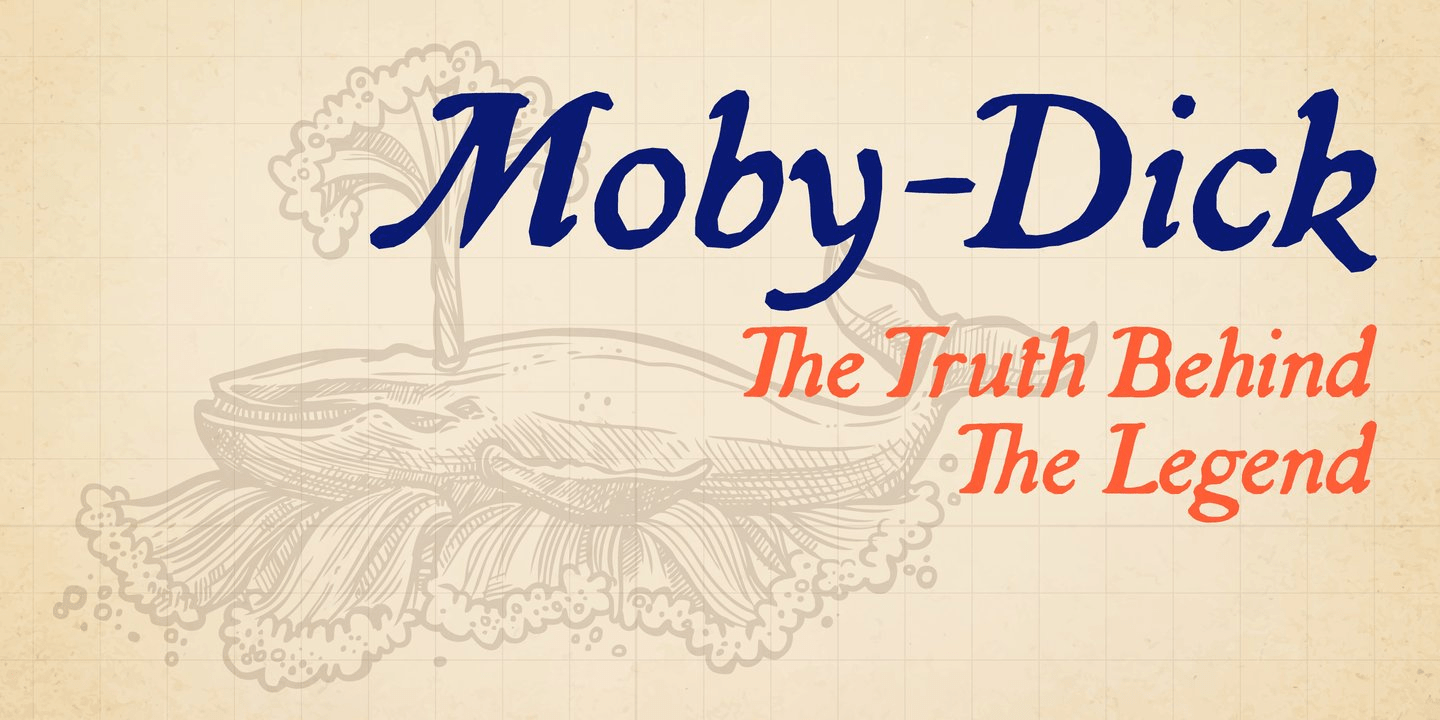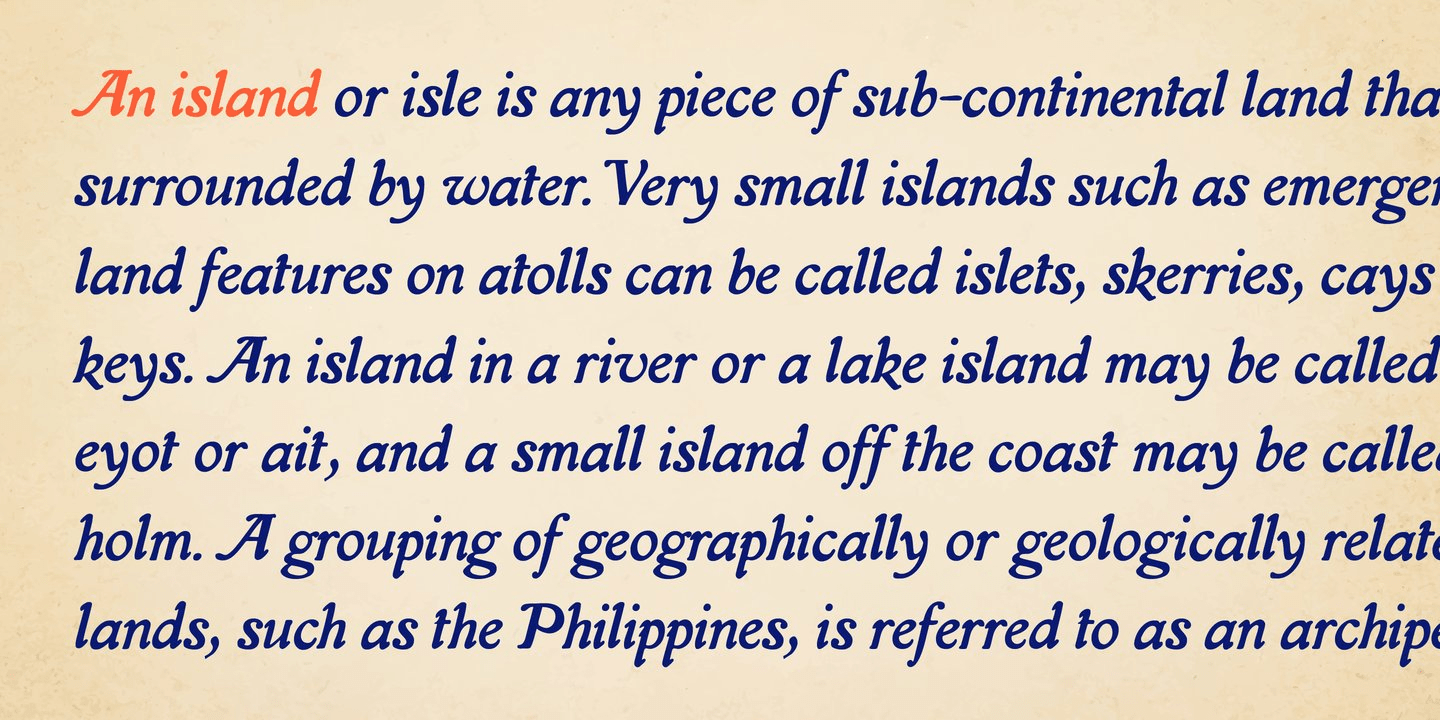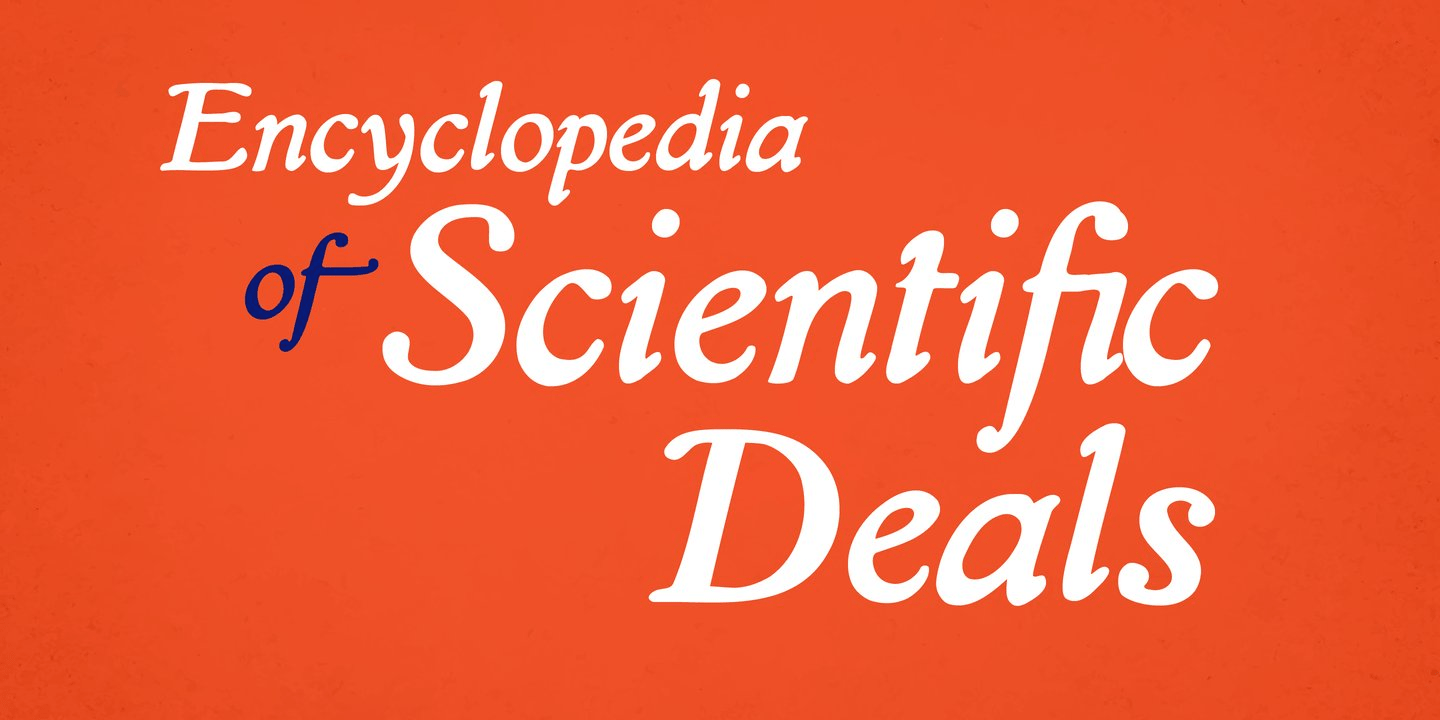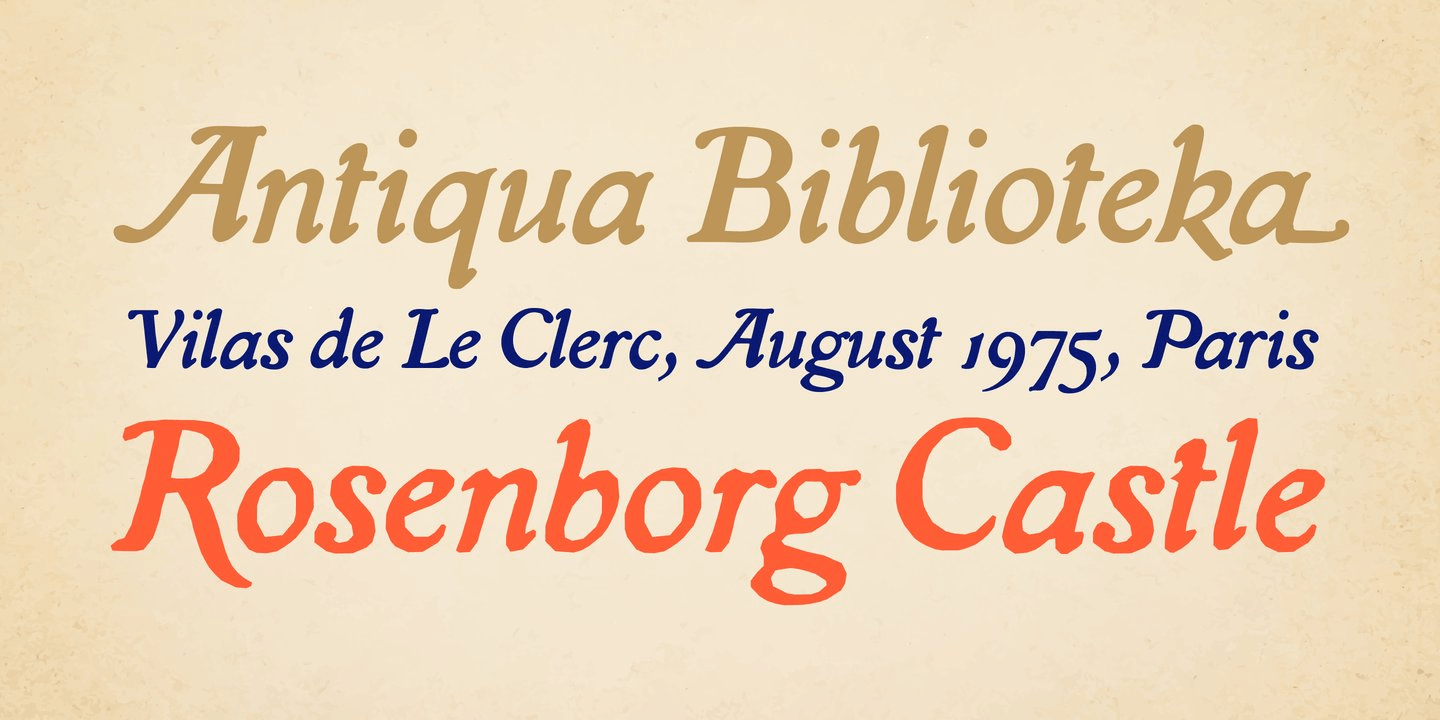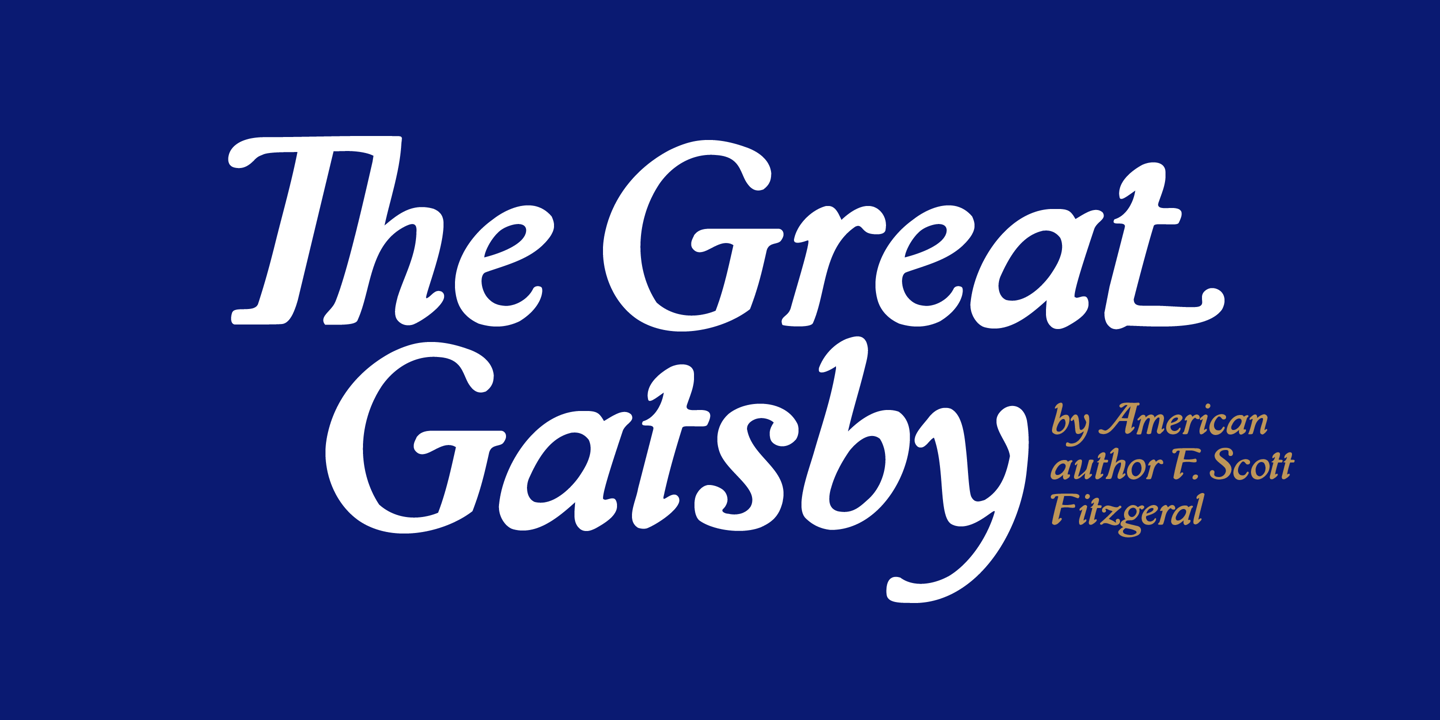
About Isla
Eugene Grasset, the popular 19th-century Swiss graphic designer, dabbled in a multitude of disciplines such as ceramics, furniture, tapestry, jewelry and stamp design. One of the rarely mentioned Grasset treasures is the italic he designed in 1898 for…